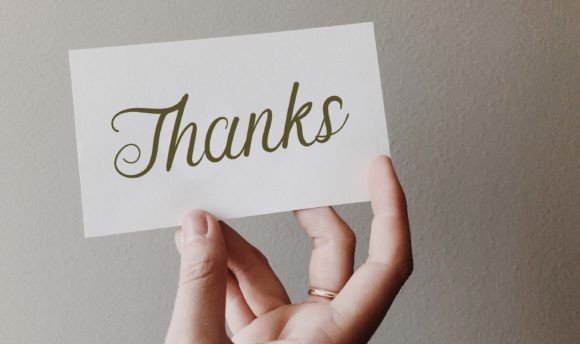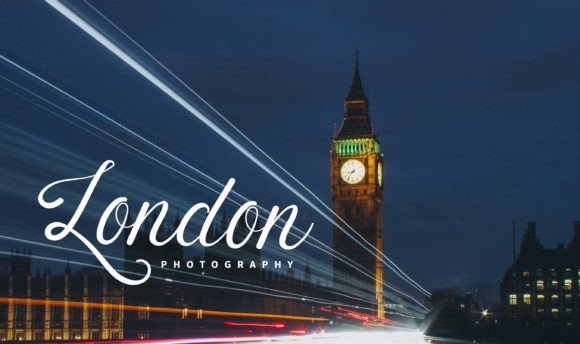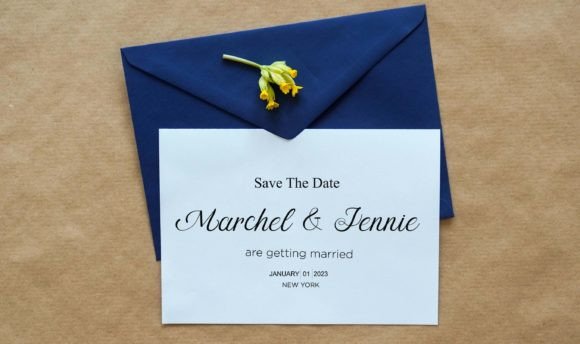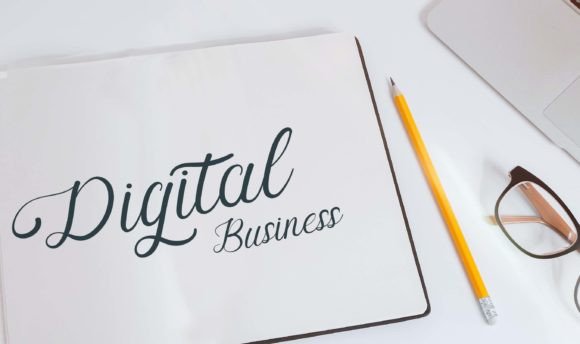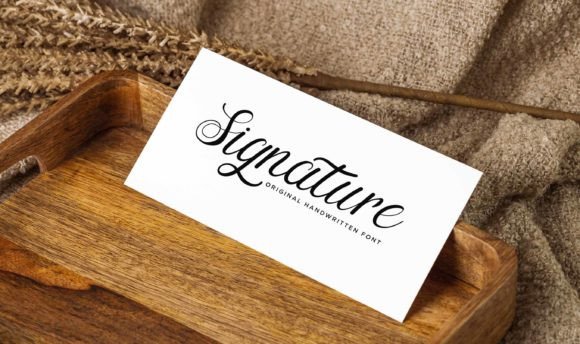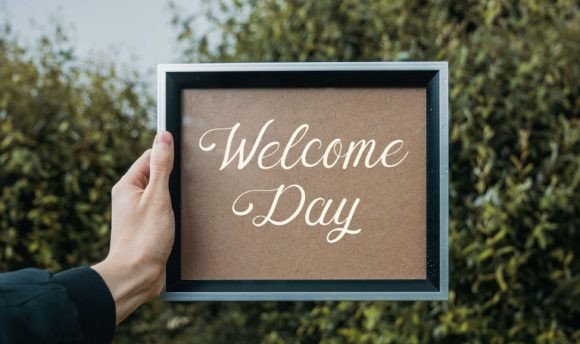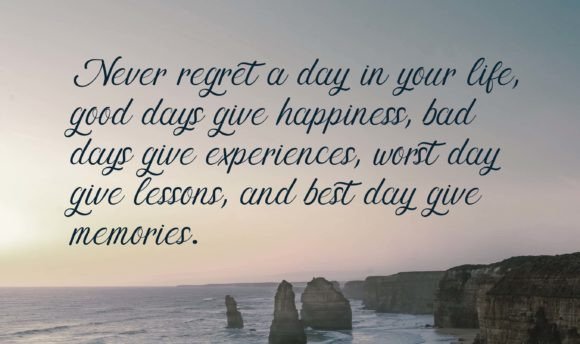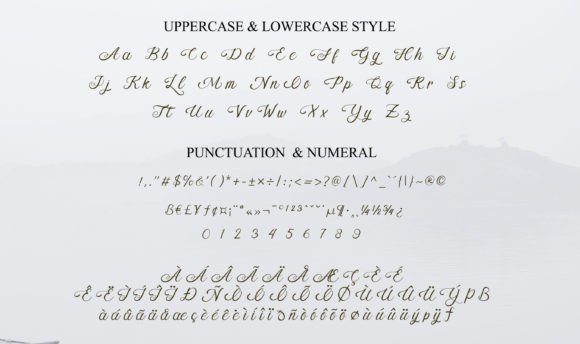
Algina Font
Algina emerges as a captivating handwritten typeface that elevates your work with its graceful and elegant curved lines. This beautiful font possesses a versatile charm that enhances a wide array of designs and projects, making it an excellent choice for various creative endeavors. Whether you’re working on invitations, labels, packaging, menus, logos, fashion, makeup, stationery, letterpress, romantic novels, magazines, books, greeting or wedding cards, brand identity, clothing industry, posters, games, Instagram, website design, cartoons, YouTube, or any other project, Algina brings a touch of sophistication and uniqueness.
The beauty of Algina lies in its ability to seamlessly integrate into diverse design contexts. The handwritten style adds a personal and human touch, making it ideal for projects that require a blend of elegance and authenticity.
In the realm of invitations and cards, Algina becomes a key element in setting the tone for special occasions. Its graceful curves contribute to a romantic and inviting atmosphere, making it perfect for weddings, greetings, and other celebratory events.
For packaging and labels, Algina brings a level of sophistication that enhances the visual appeal of products. Whether used in the beauty industry, fashion, or any other sector, the font adds a distinctive and stylish flair.
Magazines and books benefit from Algina’s aesthetic, especially in genres like romantic novels where the font’s elegance complements the content. Its versatility also extends to branding, where it can be used to create memorable logos and brand identities.
In the digital realm, Algina finds its place on Instagram, websites, and YouTube, providing a visually pleasing and readable option for online content. Its versatility ensures that it harmonizes with a variety of themes and visual styles.
Whether you’re designing for the clothing industry, posters, or games, Algina’s elegant curves and handwritten charm make it a valuable asset. Its adaptability to different design projects speaks to its versatility and timeless appeal.
In summary, Algina is more than a font; it’s a design companion that adds a touch of elegance and sophistication to your creative projects. Its beautiful handwritten style makes it suitable for a wide range of applications, ensuring that your work stands out with a unique and charming aesthetic.